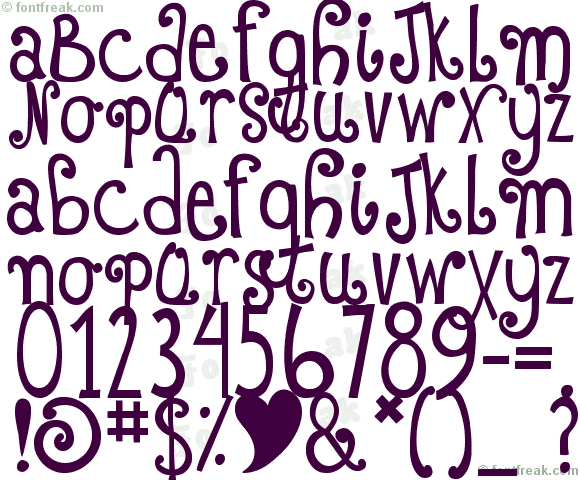
DJB Fizza Wizza Wowza Bold is a playful and whimsical typeface designed by Darcy Baldwin, falling within the decorative category. This font features a unique handwritten style that captures attention with its bold strokes and lighthearted charm. The character shapes are rounded and slightly irregular, which adds to its friendly appeal, while the stroke weight remains consistent, providing a solid presence on any design. The spacing is generous, ensuring readability while maintaining an informal, inviting atmosphere.
This font is particularly well-suited for a variety of creative applications. It shines in settings such as children's book covers, where its playful nature can engage young readers. Additionally, DJB Fizza Wizza Wowza Bold makes a striking choice for event flyers, especially those aimed at family-friendly gatherings or community events. Its lively aesthetic is perfect for restaurant menus, where it can convey a fun and casual dining experience. Wedding invitations can also benefit from this font, offering a touch of whimsy that complements more traditional elements. Lastly, it is an excellent option for social media graphics, helping content creators craft eye-catching posts that resonate with their audience.
Targeting graphic designers, small business owners, and content creators, DJB Fizza Wizza Wowza Bold is an ideal choice for anyone looking to add a spark of creativity to their projects. The font's unique style stands out in a sea of conventional typefaces, allowing users to express their brand's personality in a memorable way. With its freeware license, the DJB Fizza Wizza Wowza Bold font free download provides an accessible option for anyone seeking to infuse their work with a touch of fun and originality.